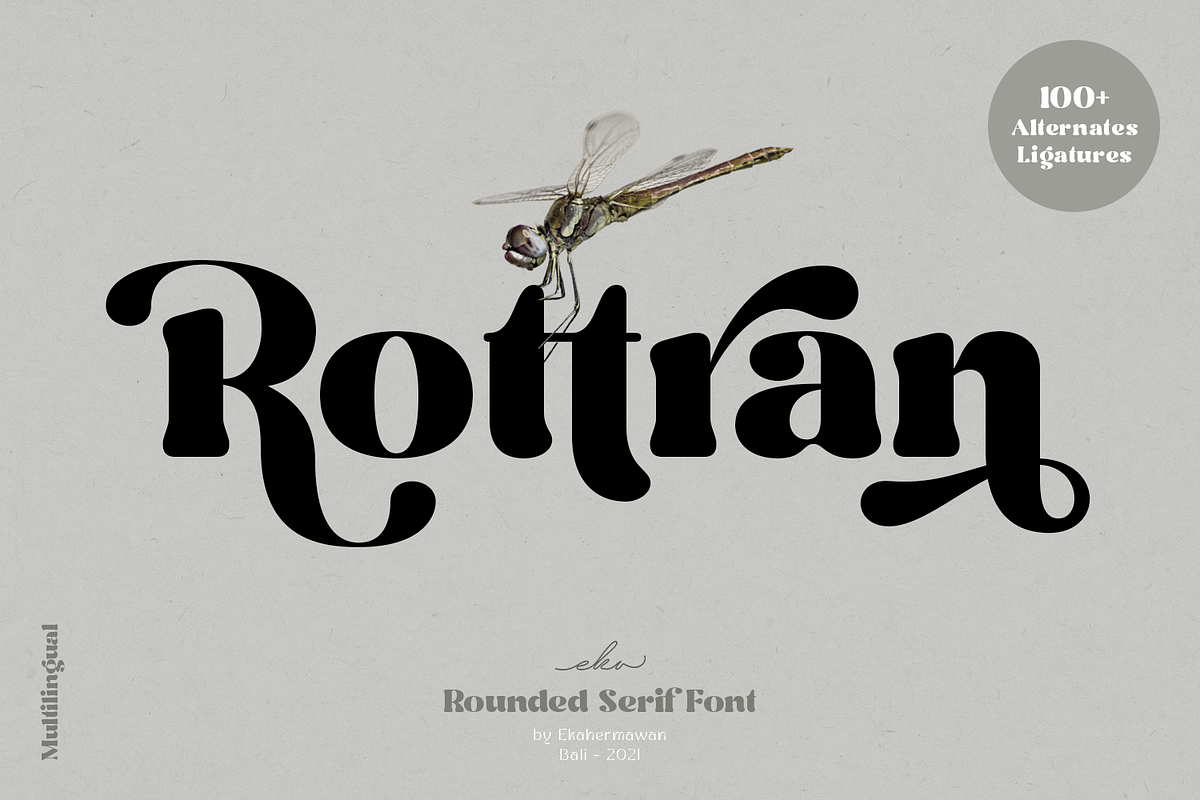
Rottran - Rounded Display Serif Font Free Download
Rottran – Rounded Display Serif Font Free Download
Rottran – Rounded Display Serif Font Free Download is a bold and contemporary serif typeface with softened edges and playful curves. Designed for display use, Rottran combines the elegance of classic serifs with the friendly vibe of rounded terminals, making it perfect for logos, headlines, posters, packaging, branding, and editorial design.
With its high contrast and strong presence, Rottran Free Download stands out in both print and digital settings. Its rounded details add a modern twist to traditional serif forms, creating a look that's both stylish and approachable.